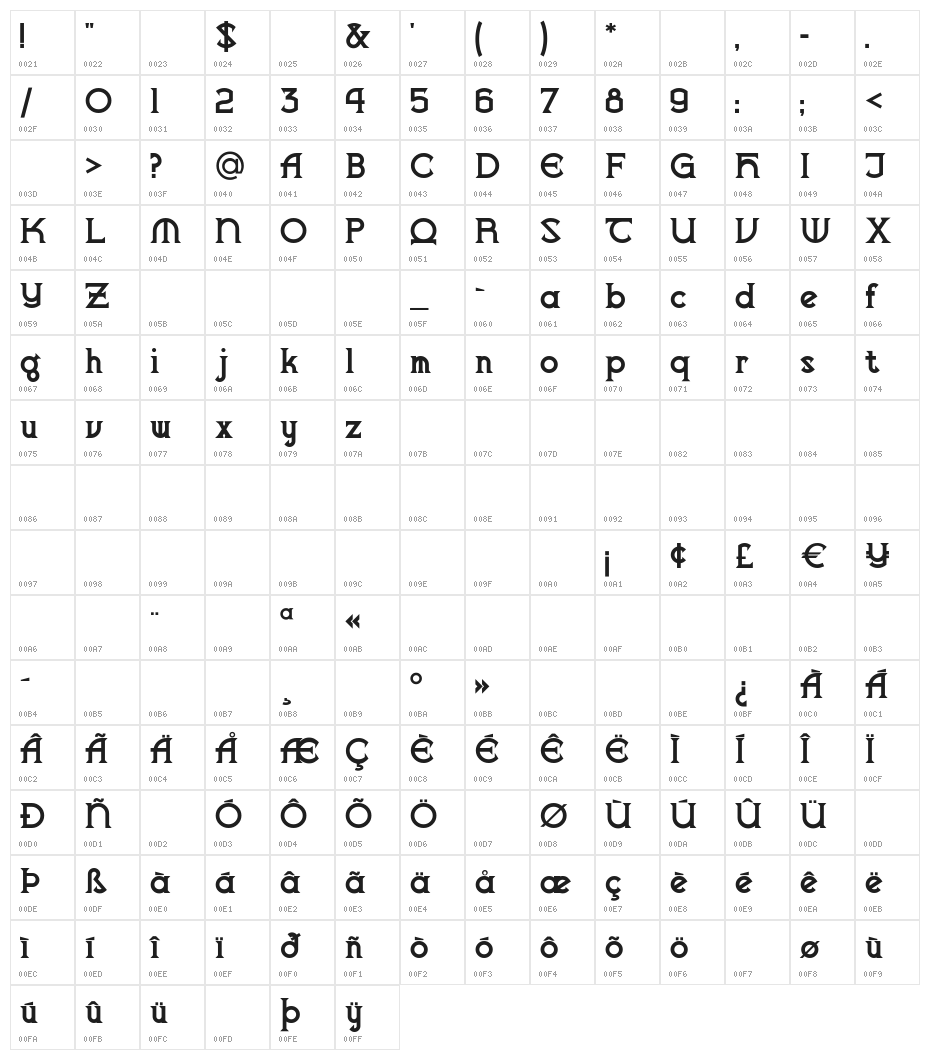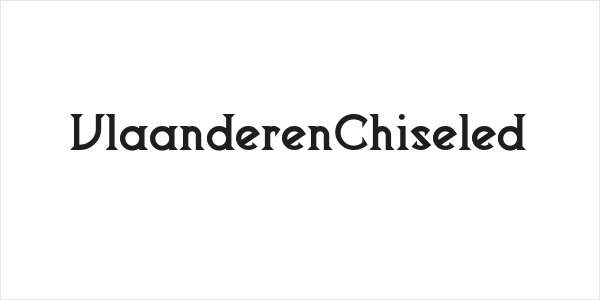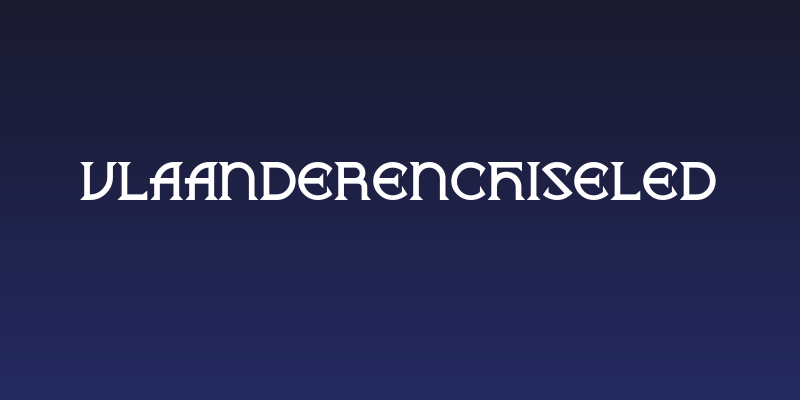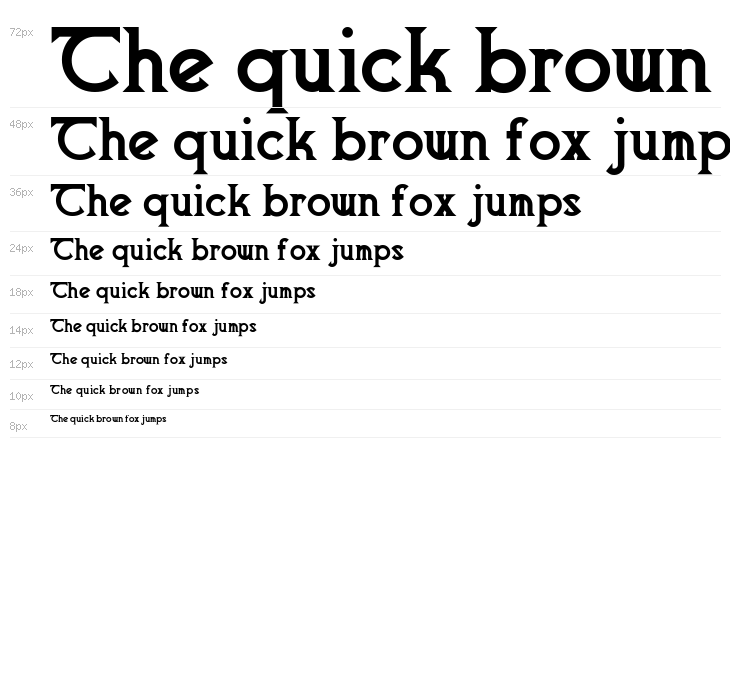
VlaanderenChiseled Font
VlaanderenChiseled Description
This font features a bold and striking design with sharp, chiseled edges that give it a strong and commanding presence. The uppercase letters are particularly angular, with distinct serifs that enhance the font's decorative appeal. The lowercase letters maintain a consistent style, with unique curves and angles that add to its distinctiveness. The numerals are equally bold, with a geometric influence that complements the overall aesthetic. Special characters are designed to match the font's chiseled theme, ensuring a cohesive look across all text elements. This font is ideal for projects that require a bold, impactful statement.
| Proposed Projects | Ideal for branding, posters, headlines, and any project needing a bold, impactful typeface. |